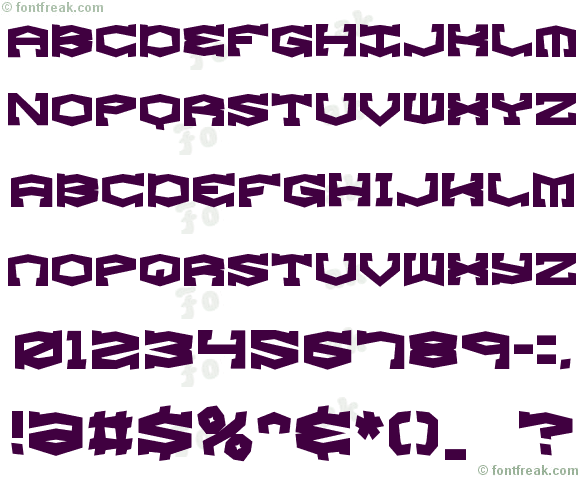
Gyrose Shift BRK
Gyrose BRK
Gyrose Squeeze BRK
Gyrose by Ænigma Fonts is a striking display font that captures attention with its unique geometric design. As a freeware typeface, it provides a fantastic opportunity for both personal and commercial projects without the constraints of licensing fees. The font showcases a bold, angular structure with sharp edges and a distinctive hexagonal motif, making it perfect for projects that require a sense of modernity and innovation. Its stroke weight is consistent, creating a robust visual presence, while the spacing is carefully balanced to maintain legibility even at larger sizes.
The Gyrose font excels in various creative applications. It is an excellent choice for eye-catching movie posters, where its dynamic shape can convey action and excitement. Additionally, it works well for branding materials, such as logos and promotional graphics for tech startups seeking a contemporary edge. Restaurant menus can also benefit from the boldness of Gyrose, drawing in customers with its unique flair. Content creators looking to make an impact on social media will find it useful for headlines and graphics that demand attention.
Targeting graphic designers, small business owners, and content creators, Gyrose offers a fresh alternative to more traditional typefaces. Its unconventional aesthetic appeals to those looking to stand out in a crowded market, allowing for creative expression in every project it graces.
What truly sets the Gyrose font apart is its ability to blend artistic flair with functionality. The geometric precision combined with a playful energy creates a typeface that is both visually appealing and versatile. With Gyrose font free download available, designers can easily incorporate this standout font into their work, enhancing their designs with a touch of modern creativity.